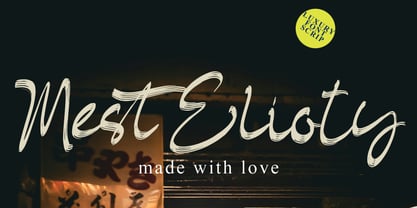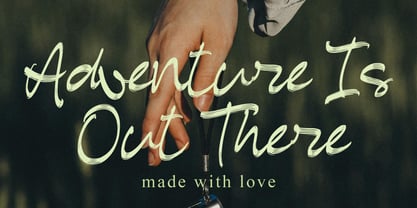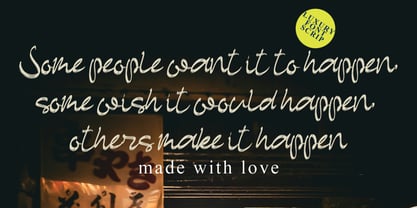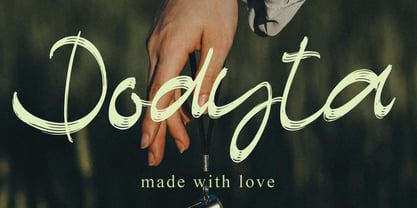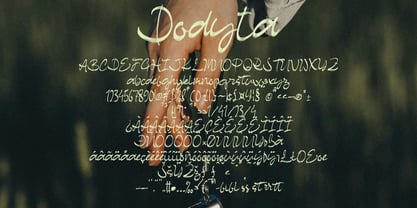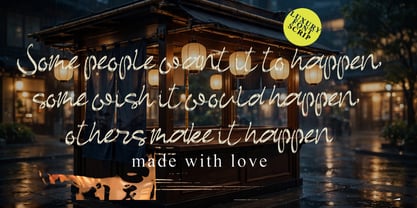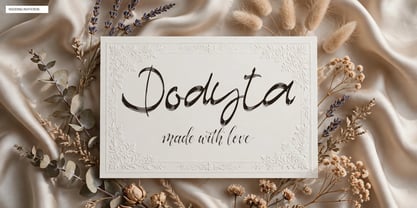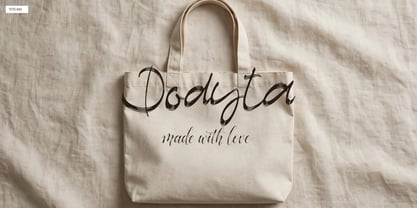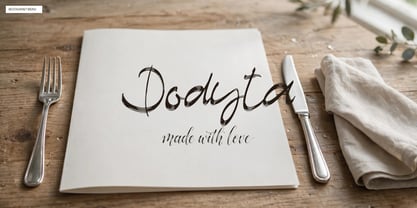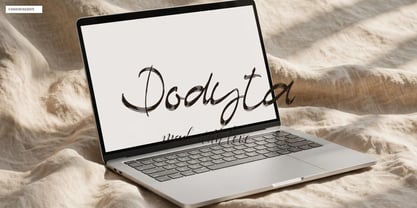
Dodyta
by Ayska
The Dodyta Font Family was designed by Dhoni Trihatmoko and published by Ayska. Dodyta contains 1 styles. More about this family
Unveil the captivating magic of Dodyta, a standout font distinguished by its modern sophistication blended with a touch of handcrafted grace. Dodyta radiates an exclusive charm, making it your perfect partner for every digital art adventure. It is lauded for its adaptability, using its unique allure to engage blog audiences, introduce a touch of exclusivity into your digital planner designs, imprint individuality on your invitations, or convey heartfelt words in your handcrafted greeting cards. Revel in the timeless elegance and originality of Dodyta, ideal for enhancing cherished photo albums or for personalizing decorations. Its compelling charm is capable of transforming commonplace digital visuals into exceptional, attention-grabbing masterpieces. Let Dodyta take the lead in your creative journey, crafting a memorable panorama of artistic imprints. Dive into the artistic grandeur of Dodyta, and observe your creative horizons metamorphose into bespoke pieces of art.
Designers: Dhoni Trihatmoko
Foundry: Ayska